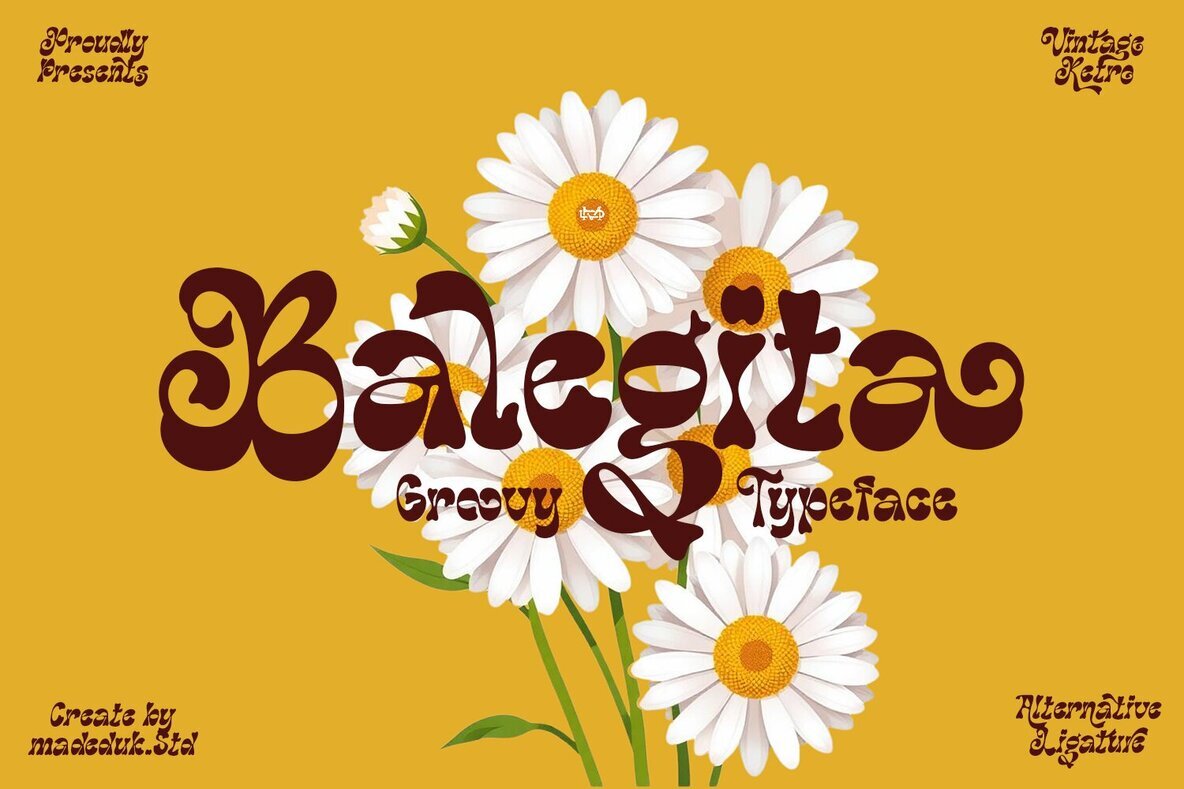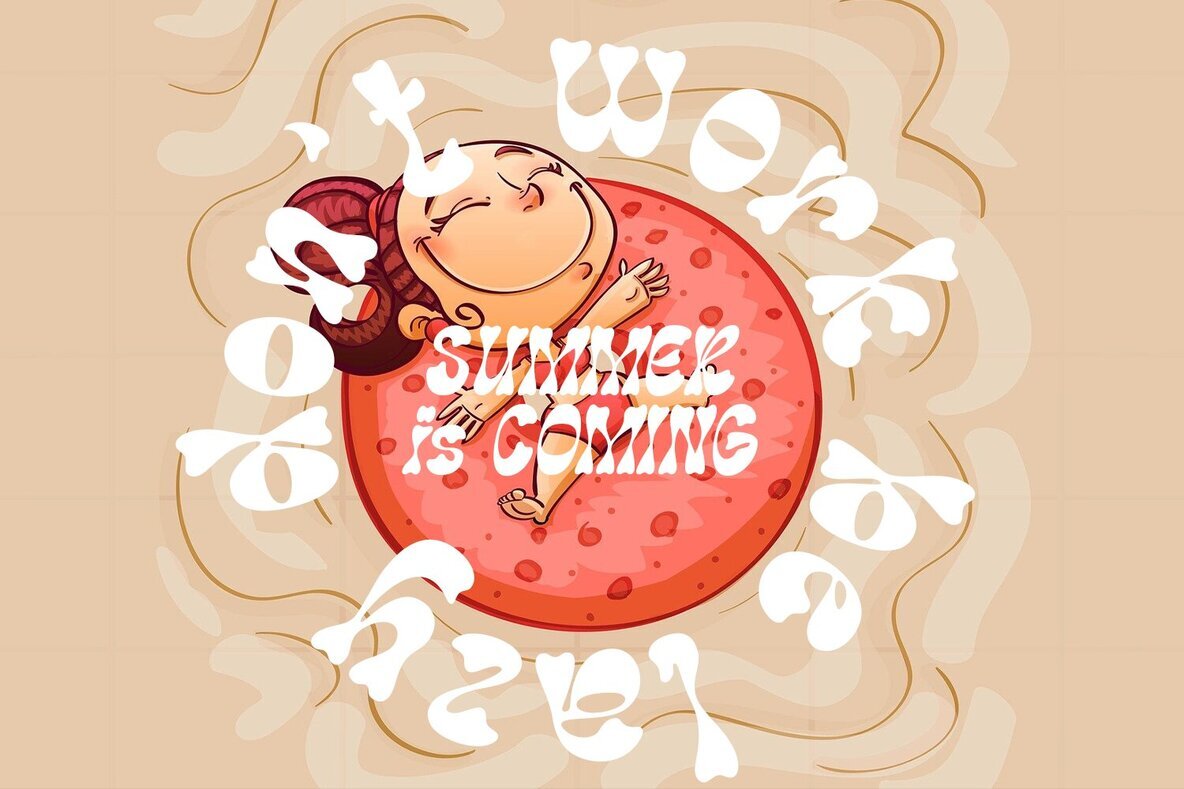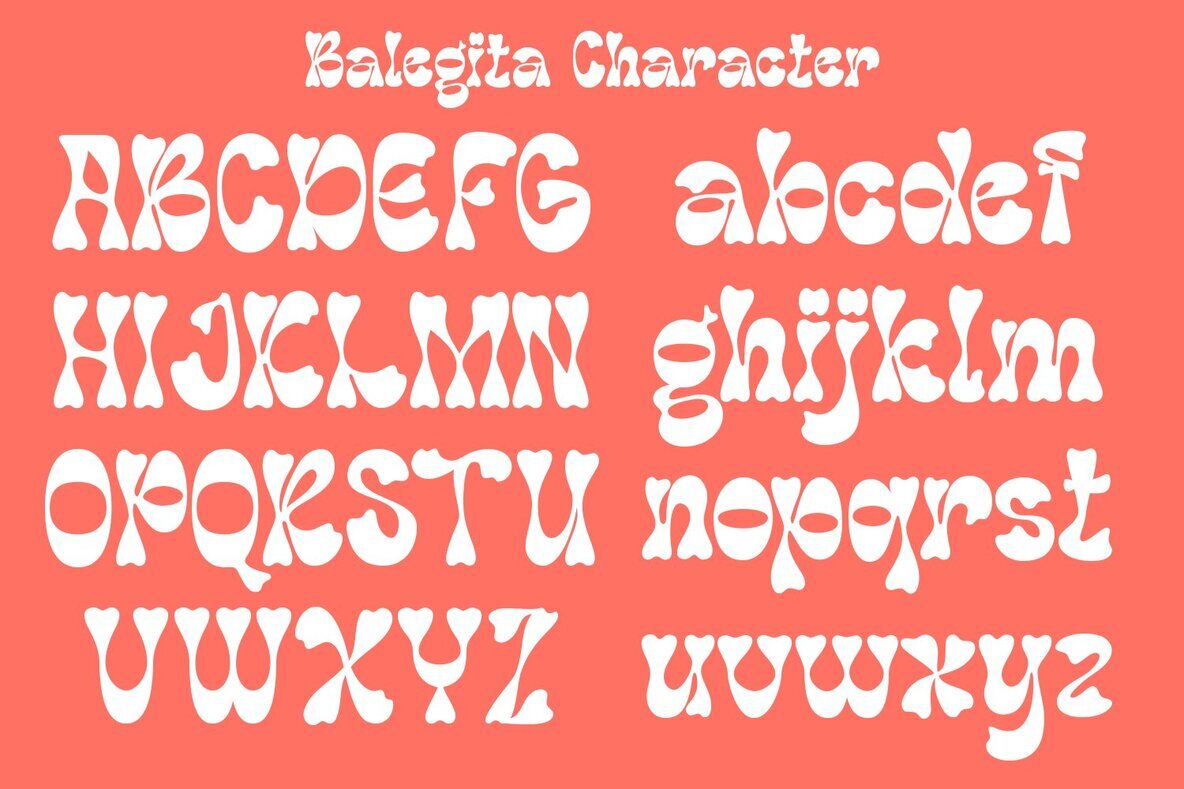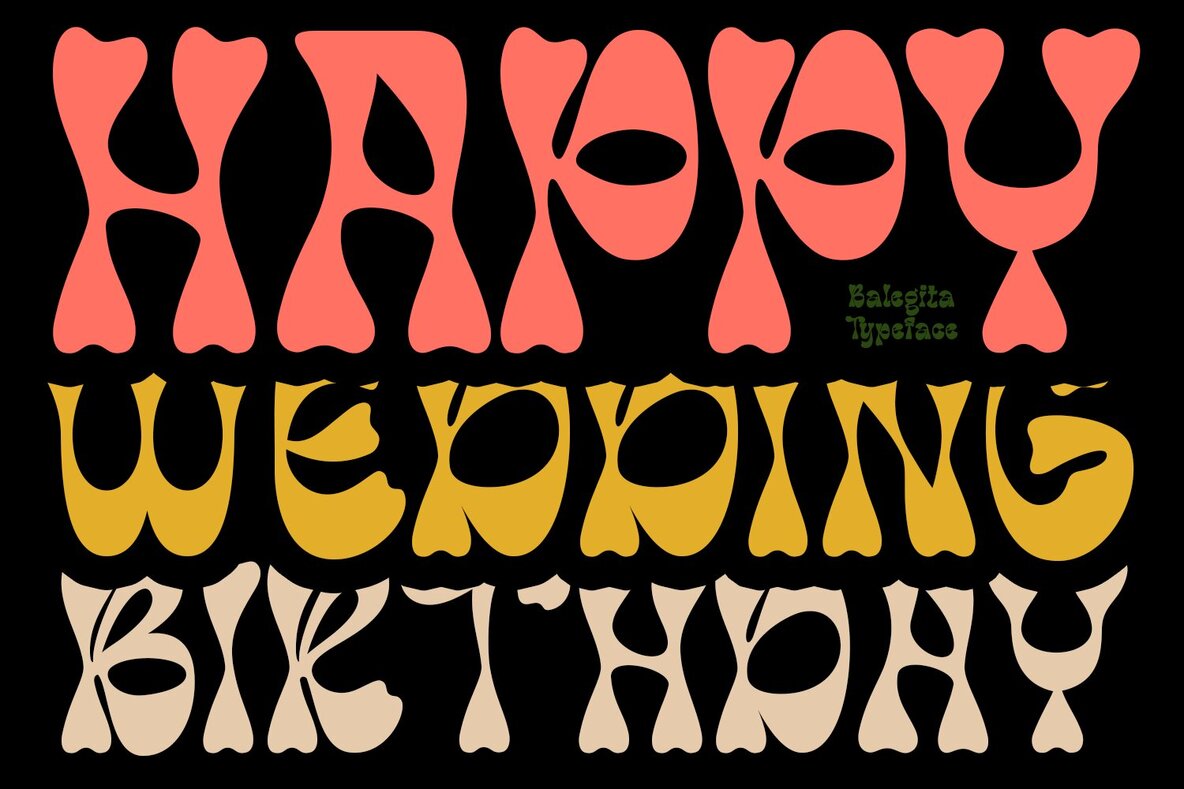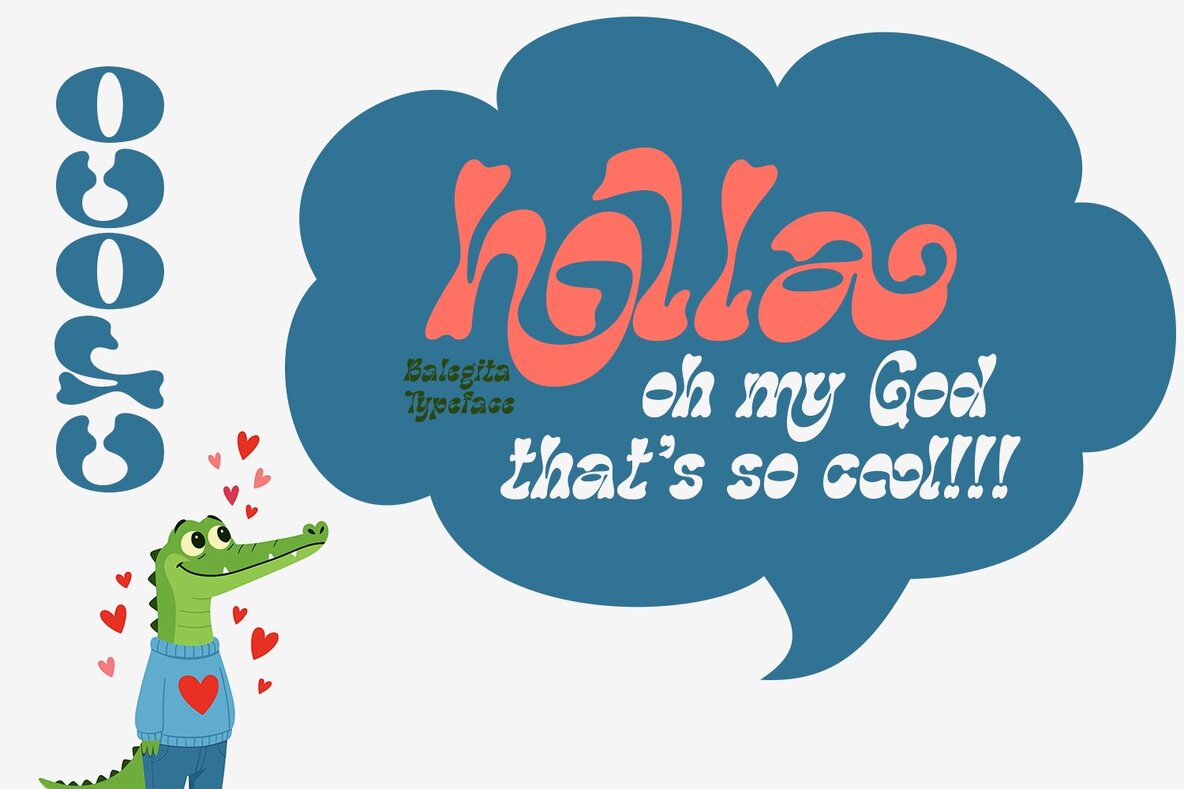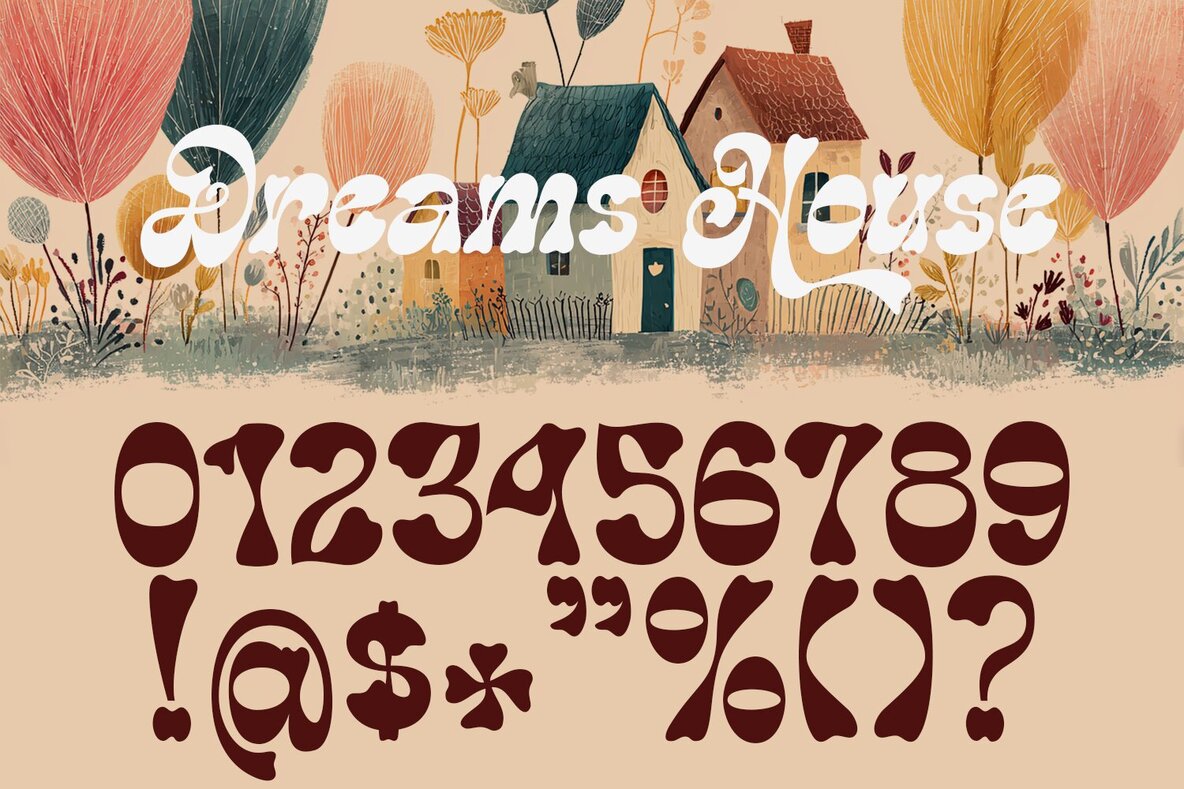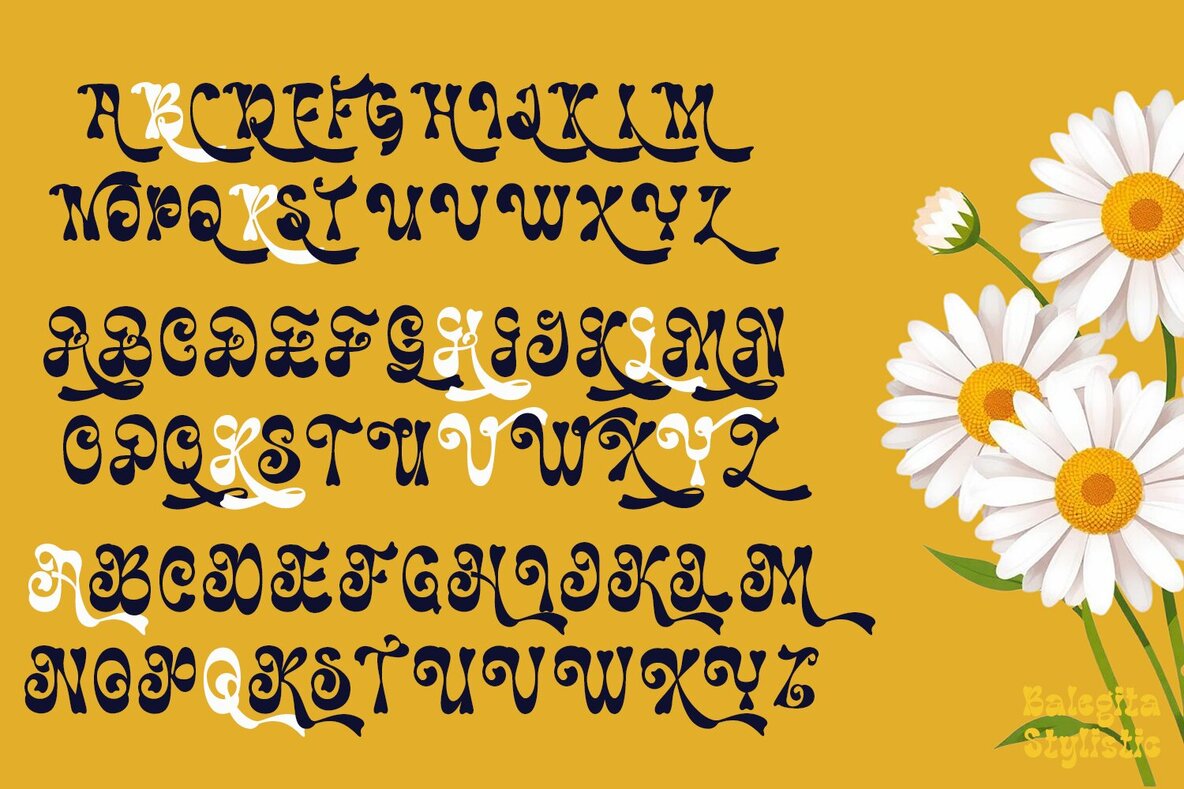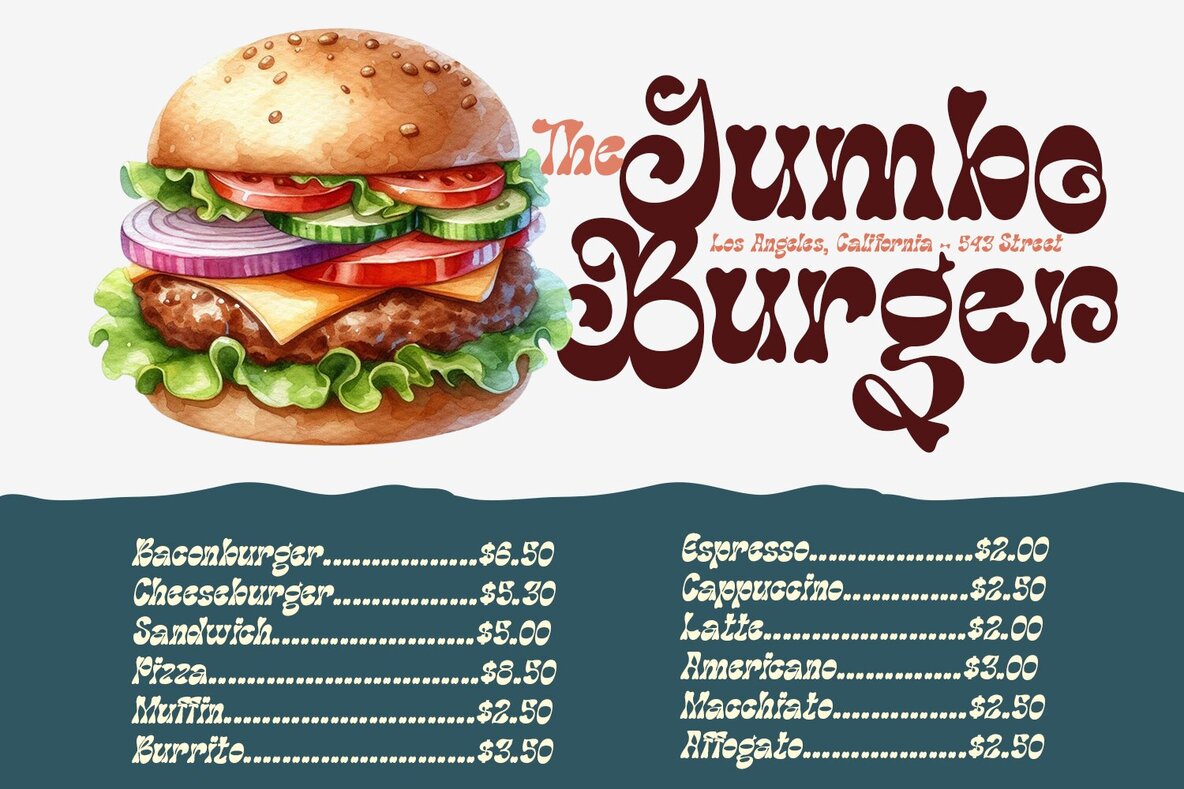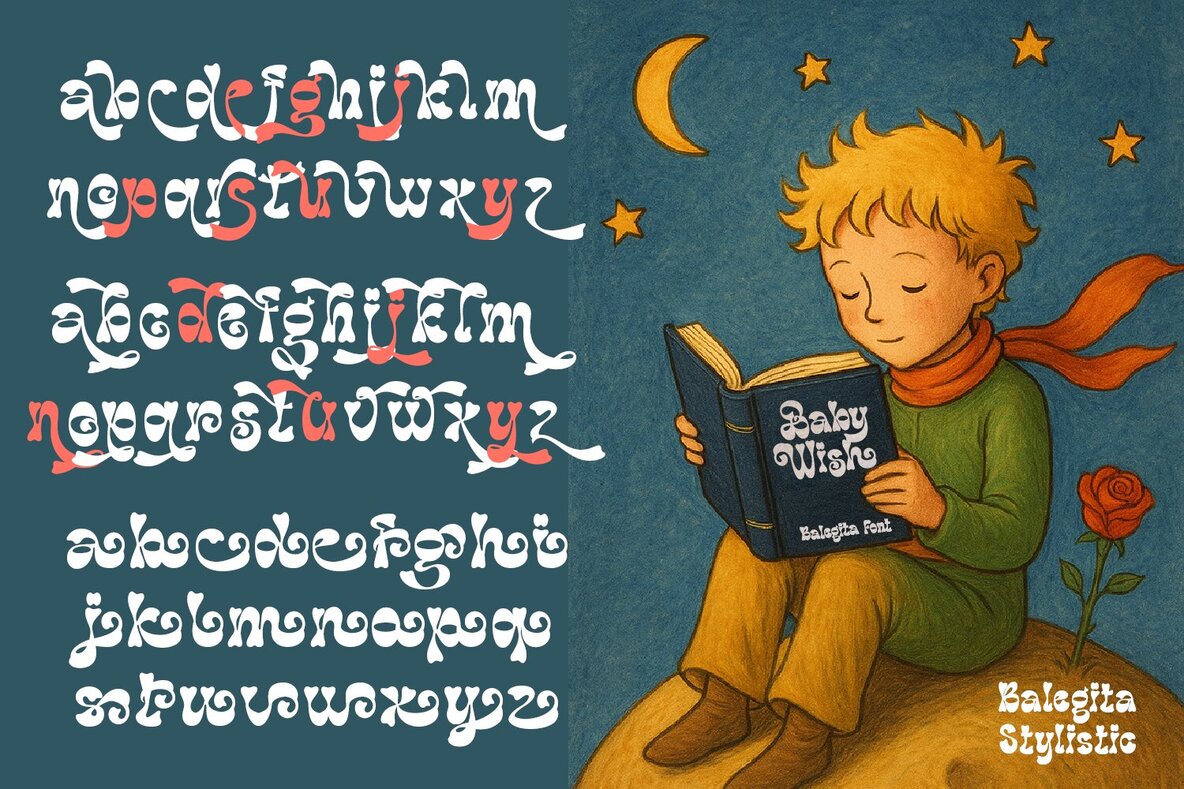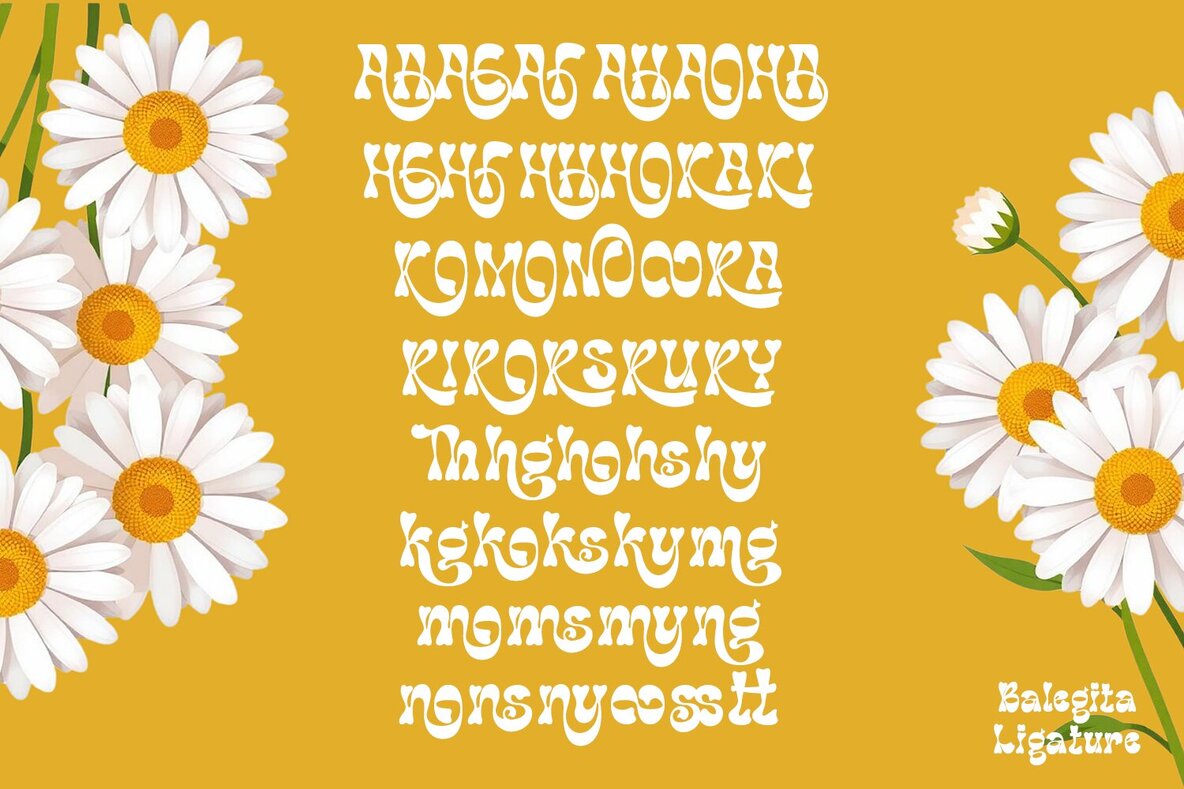
Balegita Groovy Font
Balegita Groovy brings bold, curved, and textured letterforms that command attention. Its distinct style creates an artistic edge, perfect for design projects seeking a standout, experimental look.Balegita Groovy Typeface
With a wide range of alternates and ligatures, Balegita Groovy adapts seamlessly to creative needs. This typeface suits advertising, branding, and editorial designs, performing equally well in digital contexts and printed materials.
Every letterform is crafted to make an impression, helping messages stay memorable and clear without overwhelming your layout.Features